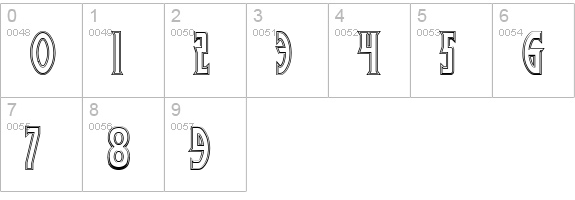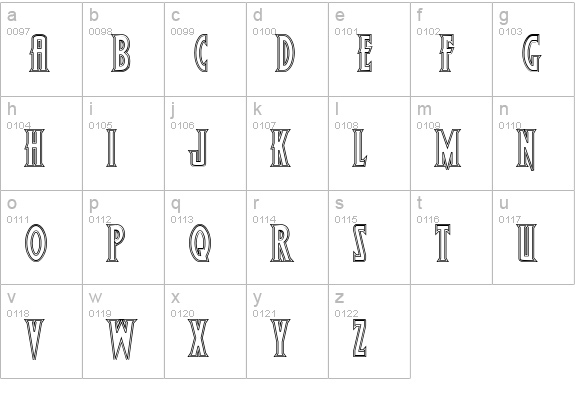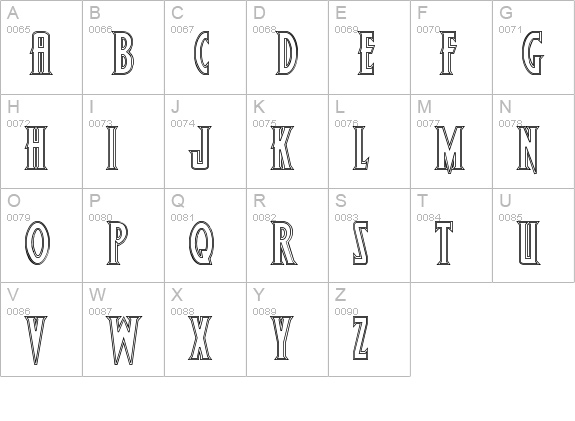
Wolf's Bane Bold Outline is a strong, high-contrast variant in the Wolf's typeface family \xE2\x80\x94 well suited to headlines, attention-grabbing titles, and strong calls-to-action.